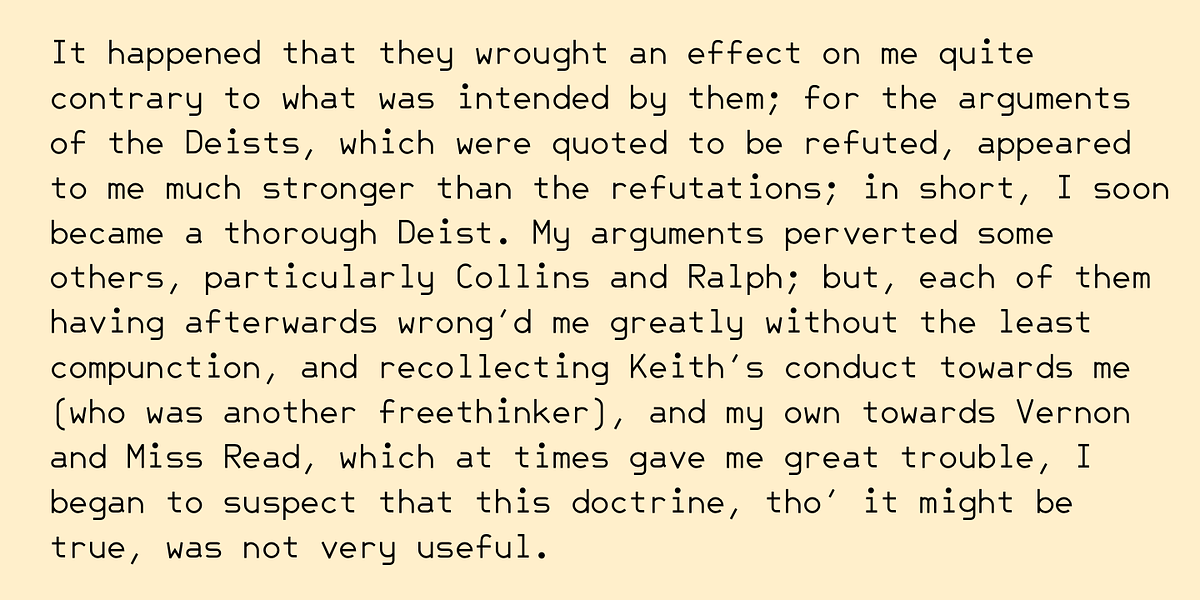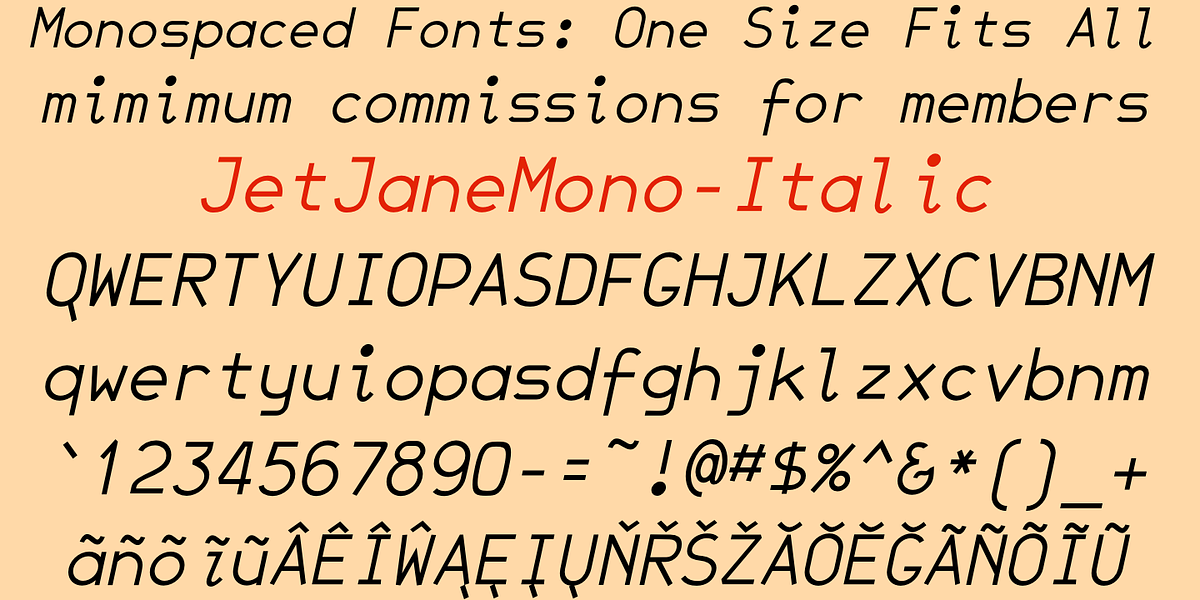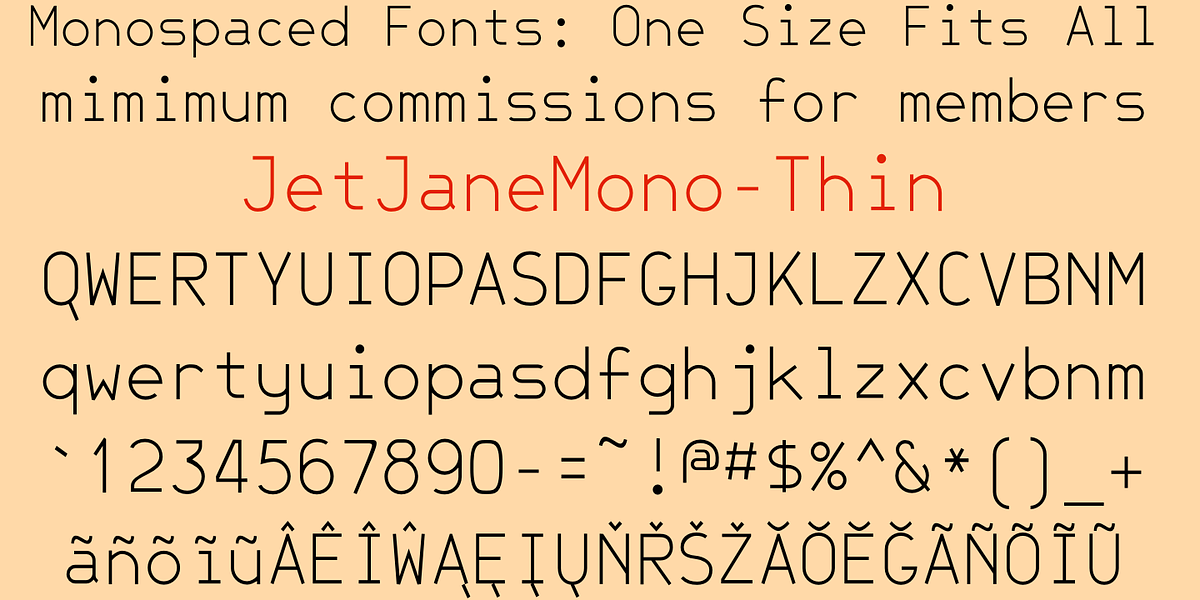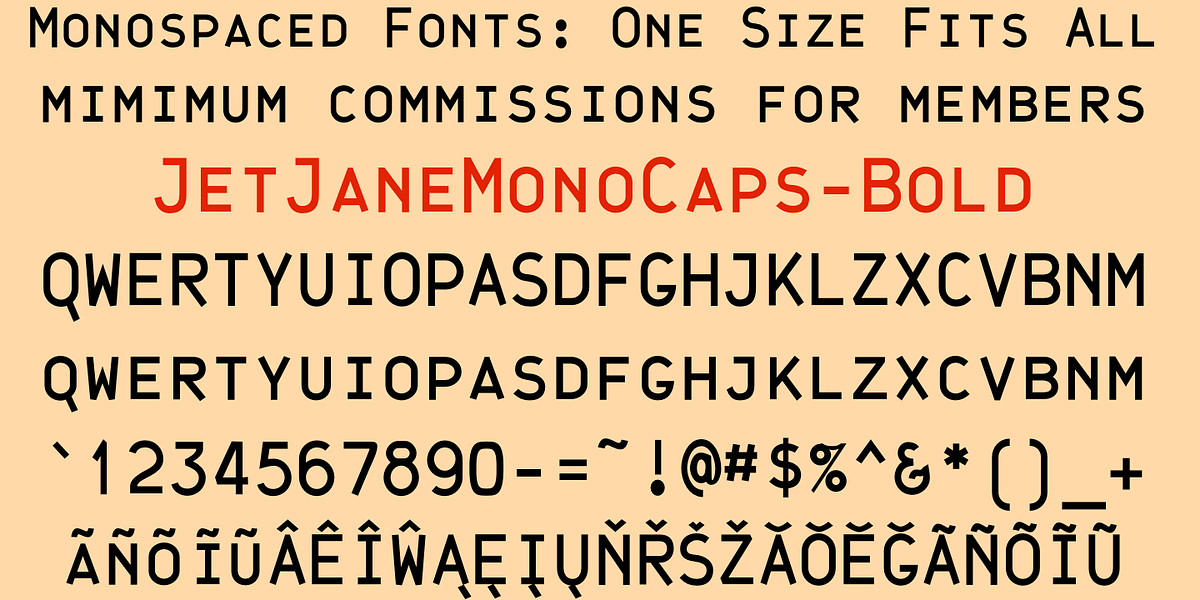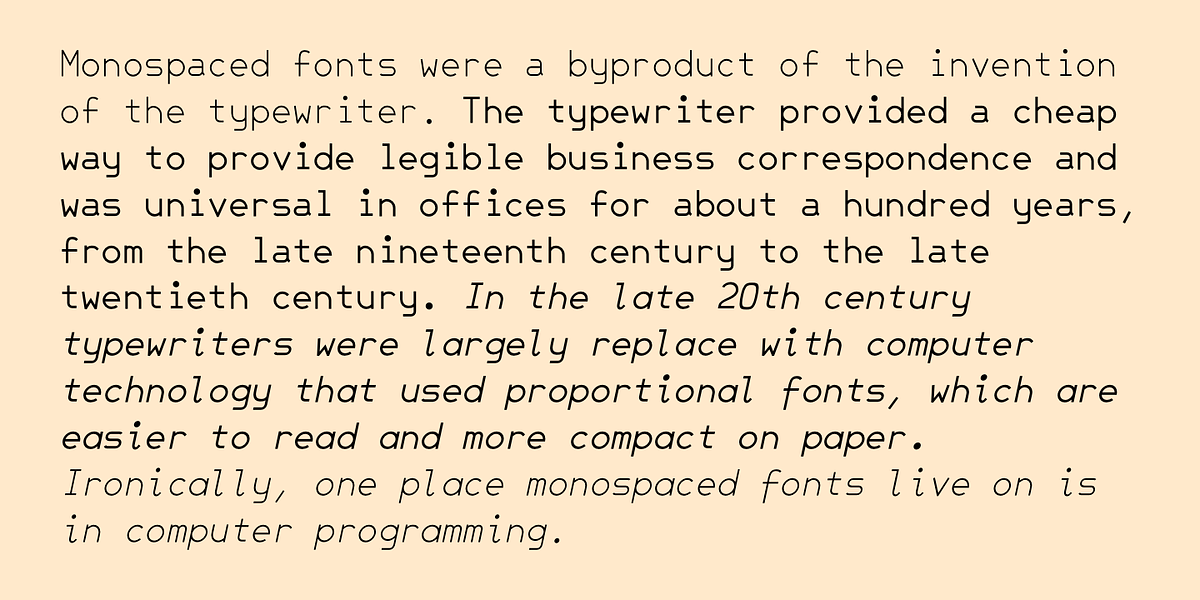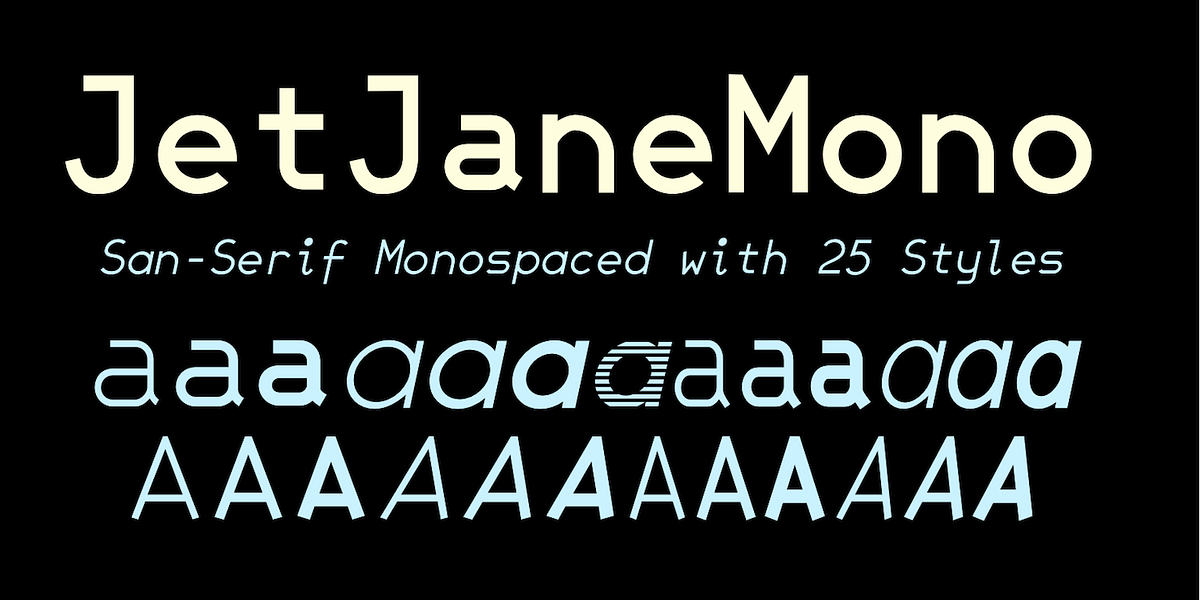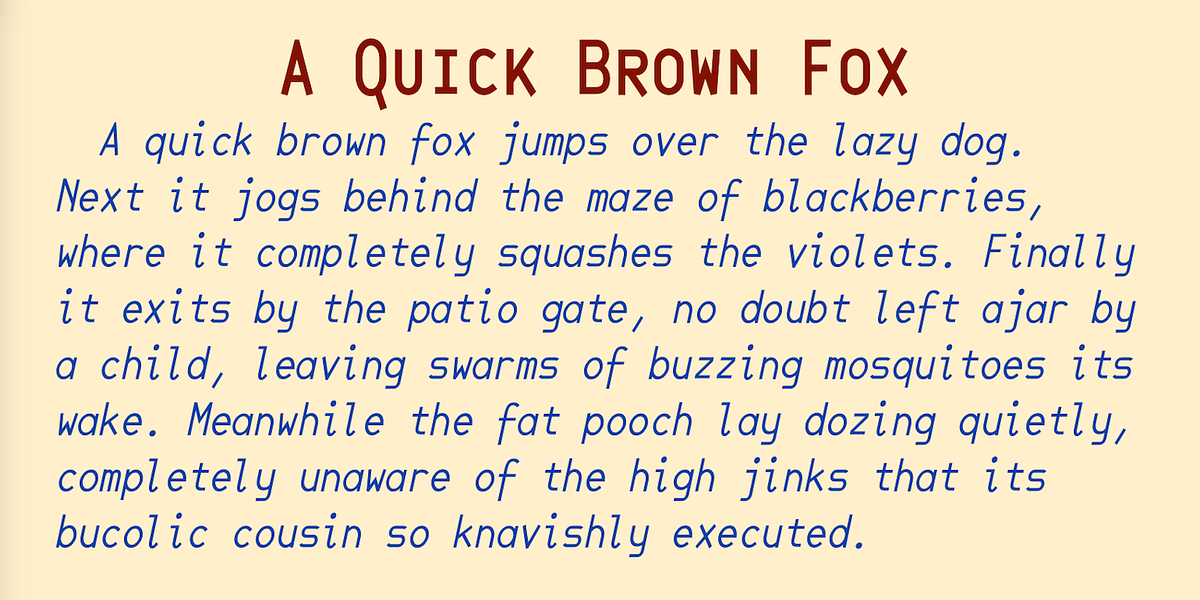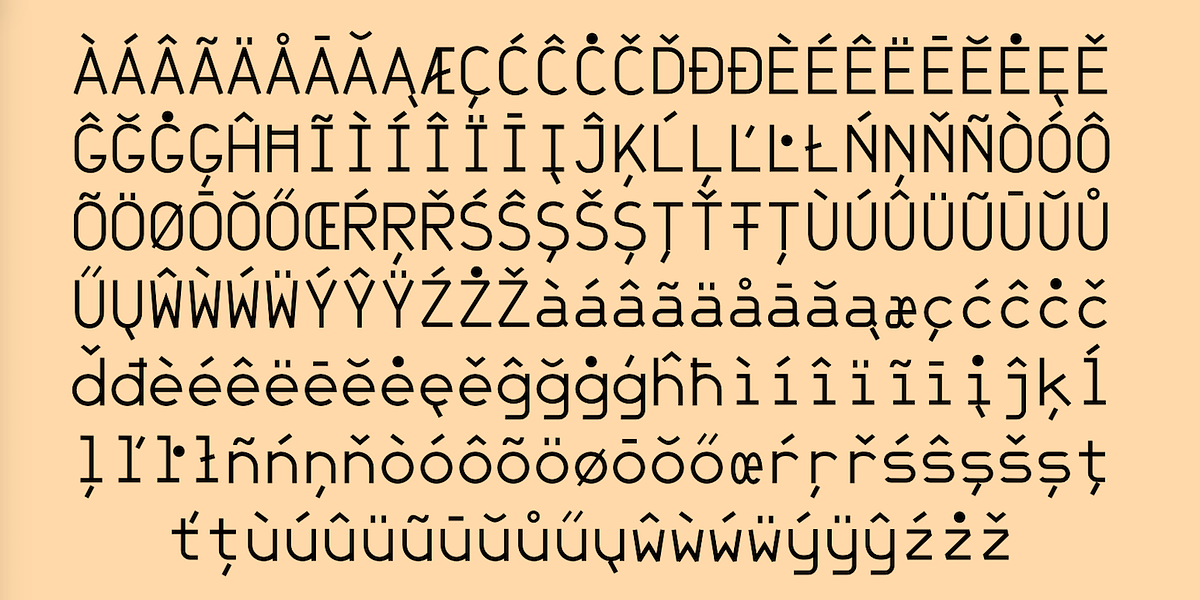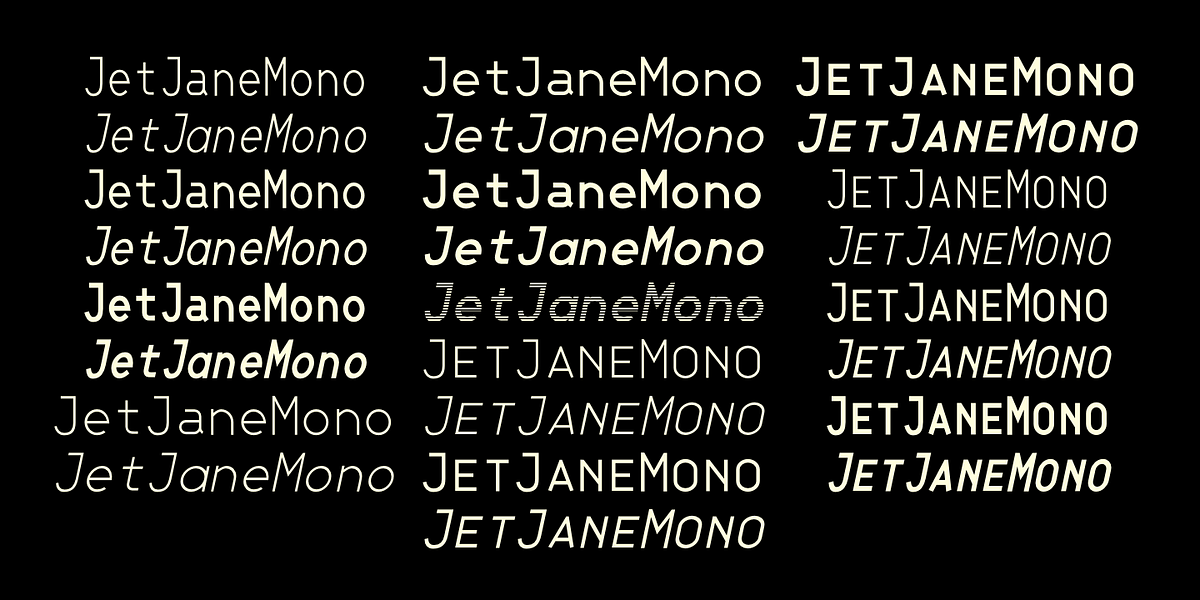
JetJaneMono
JetJaneMono is a monospaced sans-serif typeface characterized by its plain, geometric design. It offers two widths (condensed and normal) and three weights (light, regular, bold), with each upright style having a corresponding italic version. The font family also includes a unique set of styles where small caps replace lowercase letters. Created in 1994, JetJaneMono was updated in 2021 with the addition of condensed widths.